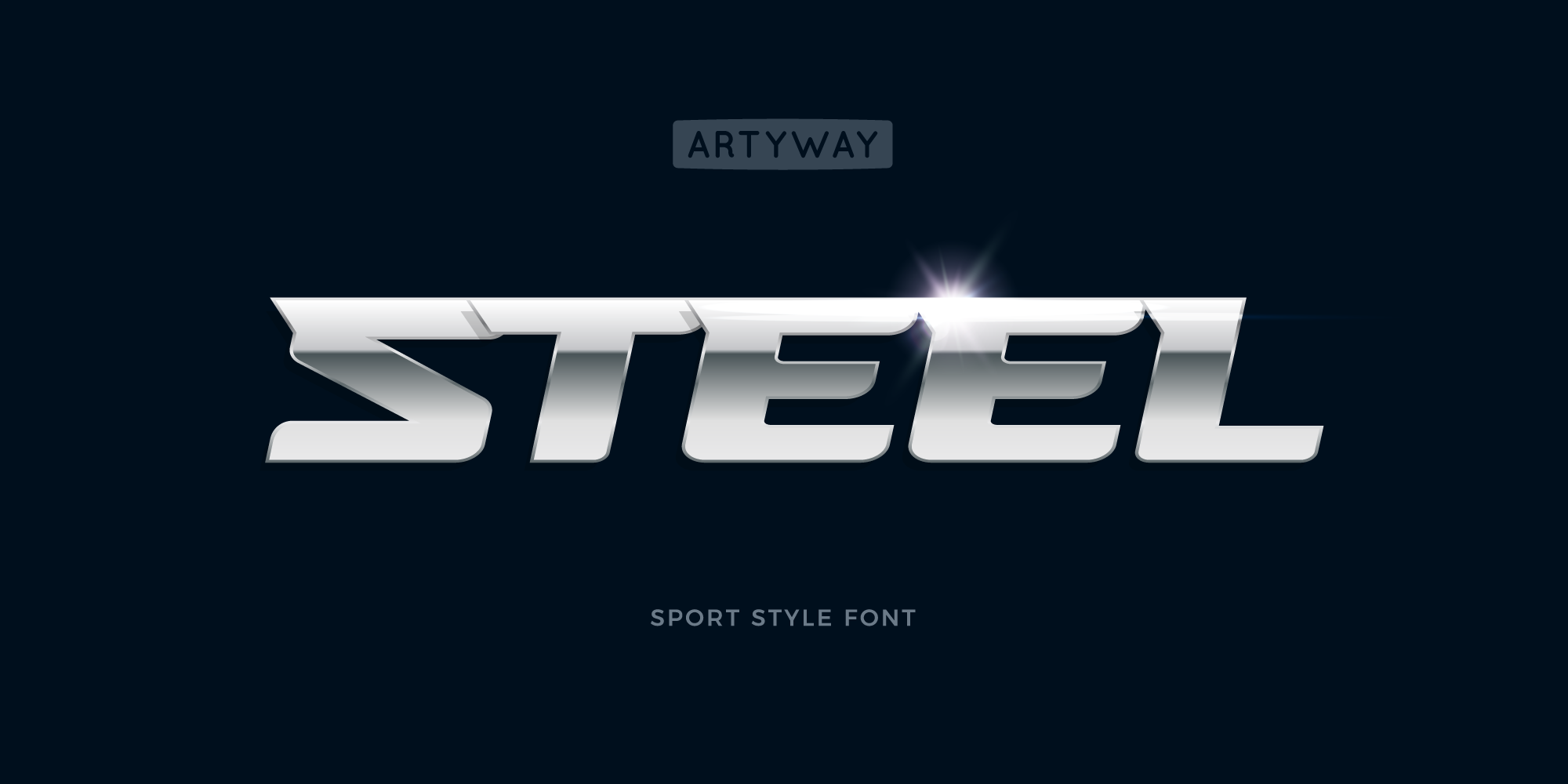
Steel Race Font is perfect for high-speed design projects including racing team logos, automotive branding, motorcycle merchandise, sports car dealerships, speed racing events, industrial equipment packaging, metal fabrication companies, and adrenaline-fueled marketing campaigns. This powerful typeface excels in Formula One graphics, drag racing promotions, automotive magazines, racing simulator interfaces, and projects that celebrate mechanical precision and competitive excellence.
What makes Steel Race Font exciting is its aggressive metallic character that perfectly embodies the raw power and precision of high-performance racing machines. The font features sharp, angular letterforms with industrial edges that reflect the strength and durability of steel construction. Its dynamic design elements capture the essence of speed, competition, and mechanical engineering excellence, making it ideal for projects that need to convey velocity, strength, and unstoppable determination. The carefully crafted angles and bold presence ensure maximum impact across all racing applications.
Steel Race Font comes in multiple family variations including regular, bold, condensed, and extended styles. Each weight maintains the distinctive metallic racing character while offering different levels of visual speed and industrial intensity. The font family includes racing-inspired alternates, velocity ligatures, and mechanical variations that provide designers with comprehensive options for creating truly powerful and competition-ready typographic statements.
Whether you're designing racing branding, creating automotive marketing materials, or developing high-octane promotional graphics, Steel Race Font Free Download provides the perfect typographic engine for projects that demand speed and precision. This exceptional typeface transforms ordinary text into compelling declarations of racing supremacy and mechanical excellence. Download this incredible font today and accelerate your design projects with typography that captures the steel-forged spirit of championship racing and industrial power.